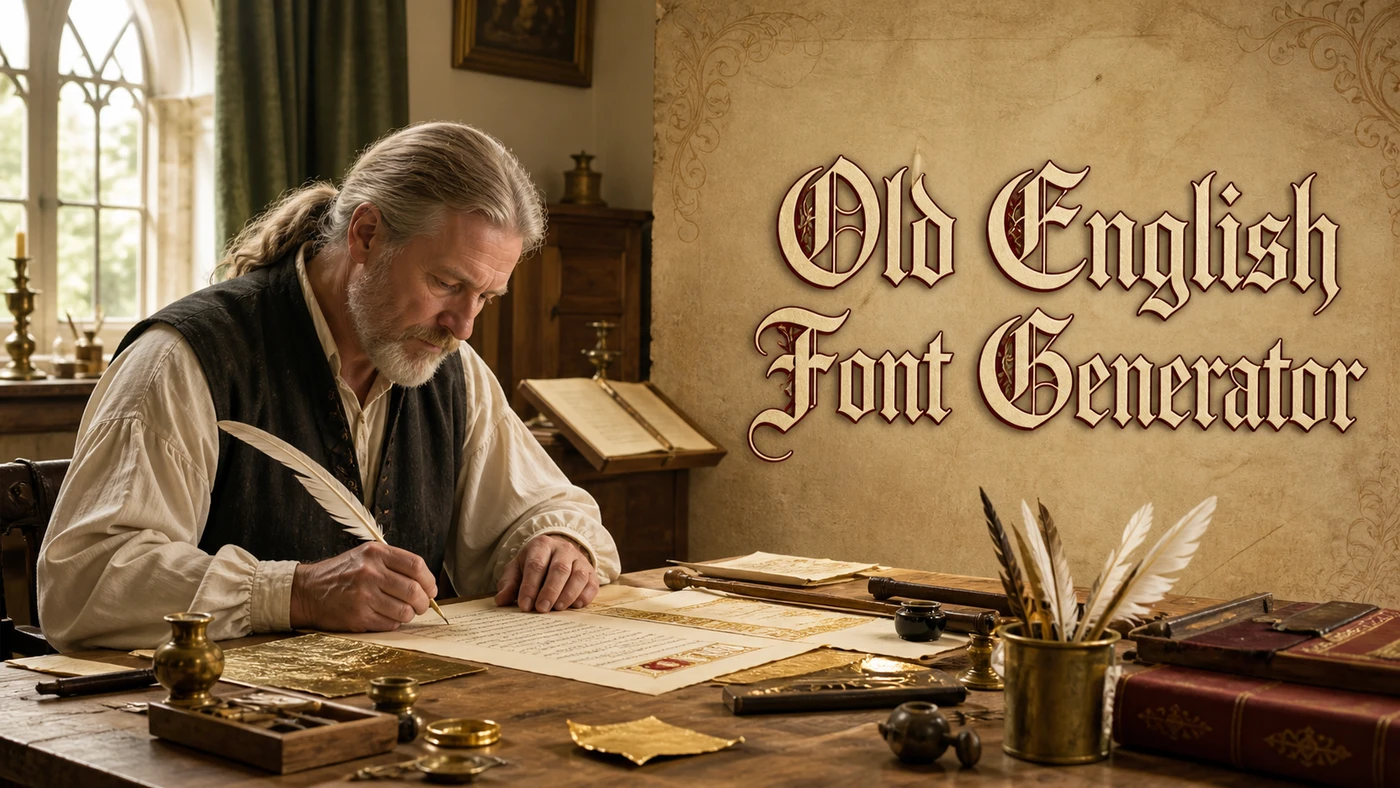
Old English Font Generator helps you turn ordinary words into a distinctive line of styled text. Type the name, phrase, bio, or caption you have in mind, and then compare several Unicode text styles in one place. Because the result is made from text characters rather than a picture, you can copy it and paste it into profiles, messages, captions, documents, and creative projects.
What does Old English Font Generator do?
The Old English Font Generator tool changes selected letters into Unicode alternatives that resemble bold, italic, script, small caps, wide text, or other decorative forms. These characters can appear in a username, display name, bio, caption, message, profile heading, or creative project, depending on the rules of the destination. The generator does not create a new image, so the copied result stays editable as text.
How do you use Old English Font Generator?
A good text style changes the mood of a line without hiding the words that people need to read. The available choices include bold text, italic text, cursive letters, small caps, wide text, and simple Unicode symbols. Each option has a different visual weight, so it helps to match the style to the length and purpose of the text. A short name can support a stronger style, while a longer bio or caption often needs more open letter shapes and fewer symbols.
Before you publish, look at the result in context rather than judging it only inside the generator. A name that looks balanced in a wide preview may wrap on a phone. Likewise, a decorative symbol that looks harmless in a profile can become confusing in a search field. Context gives you a more reliable final check. For this tool, one practical point matters: Old english, also called blackletter, is the heavy medieval style used on certificates, band logos, and tattoos. These characters copy and paste anywhere, though the ornate capitals are the first to fall back to boxes on older devices. Account handles reject it, and some capitals are missing on older phones, so a name can show a box where a letter should be.